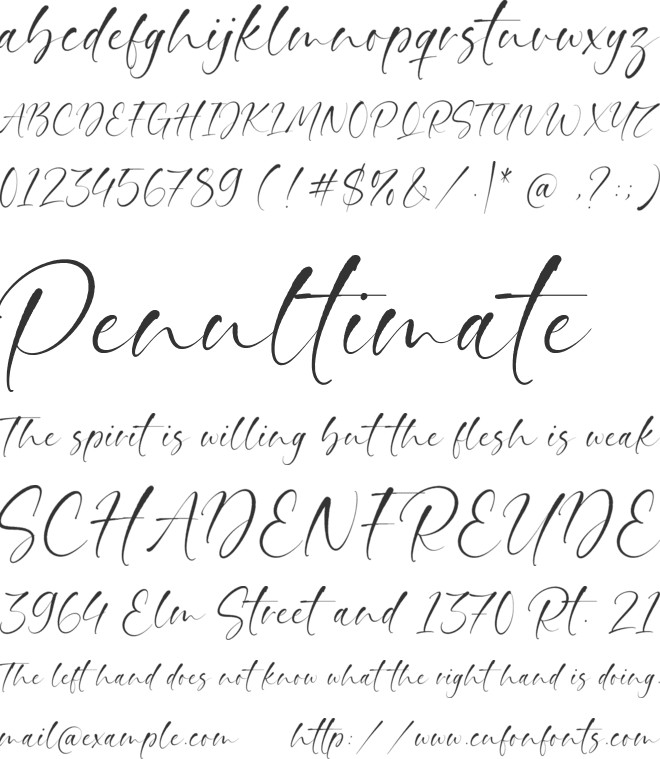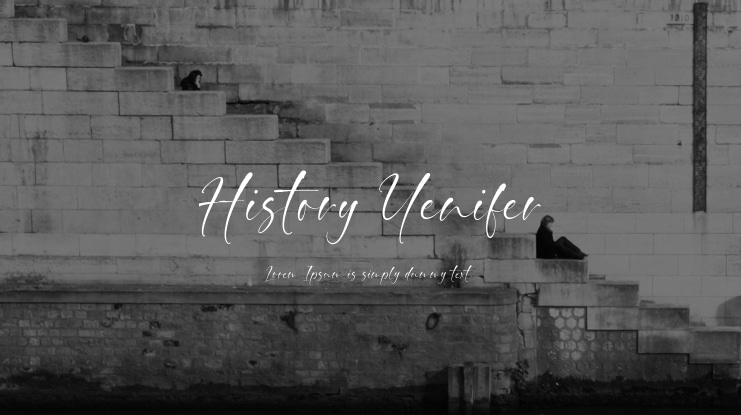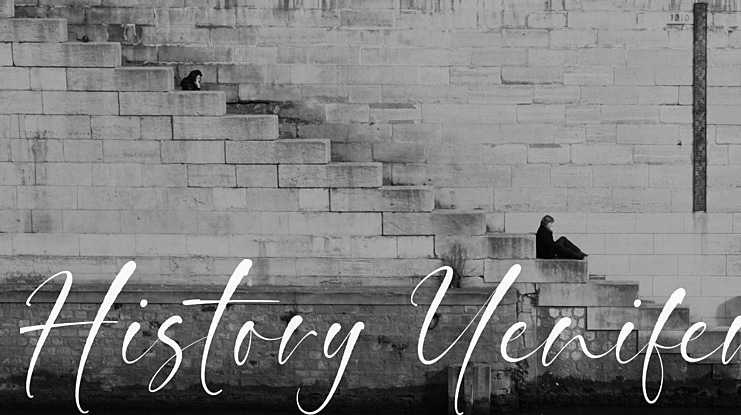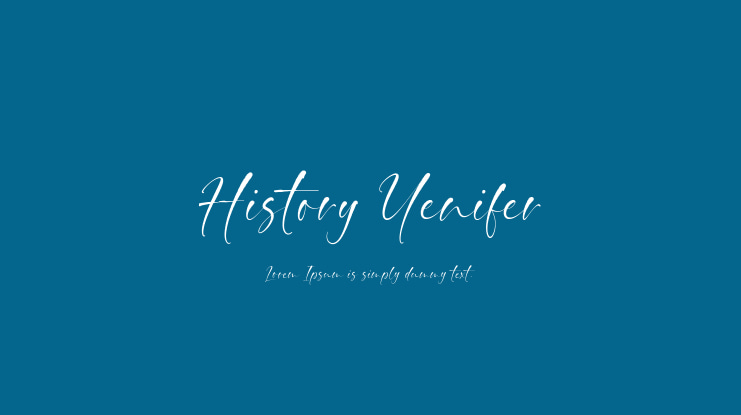
History Yenifer Font
Introducing History Yenifer Handwritten Font, a modern and fresh script font that will add a warm and inviting touch to your business. Discover the magic of this font and take advantage of its unique features.
History Yenifer is the perfect choice for product packaging, branding projects, magazines, social media, weddings, or any creative expression on various backgrounds.
Key features of History Yenifer Font:
• Complete set of standard alphabet and punctuation
• Offers multilingual support